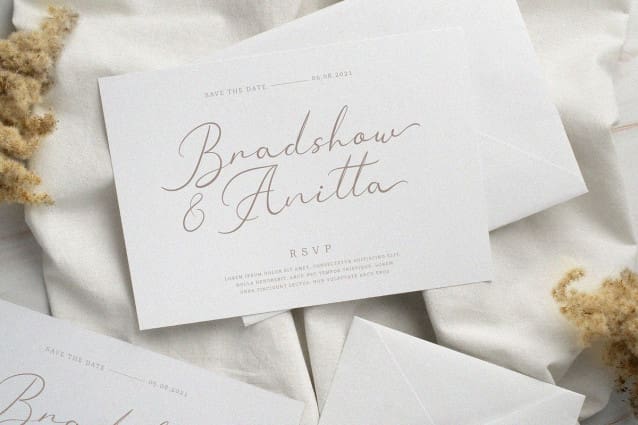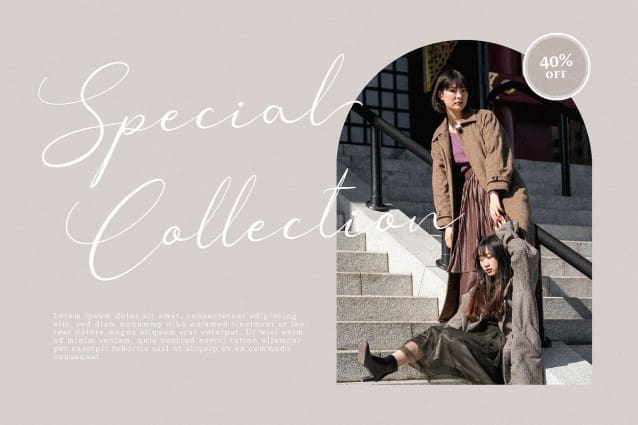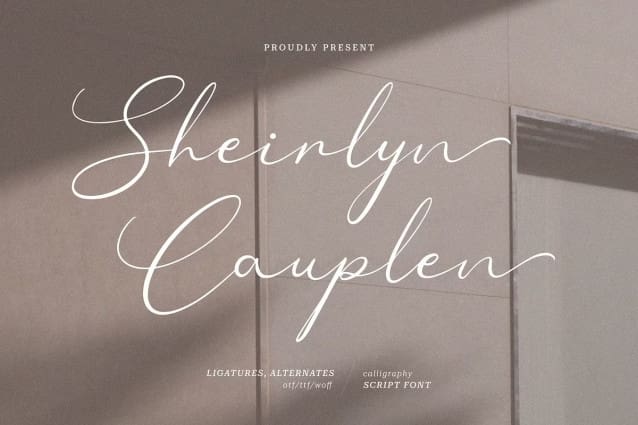
Sheirlyn Cauplen Font
Sheirlyn Cauplen Font | Casual Script, from Denustudios, suitable for any projects such as: logos, branding projects, homeware designs, product packaging, mugs, quotes, posters, shopping bags, t-shirts, book covers, name card, invitation cards, greeting cards, label, photography, watermark, special events, and all your other lovely projects that need acasualscript taste.